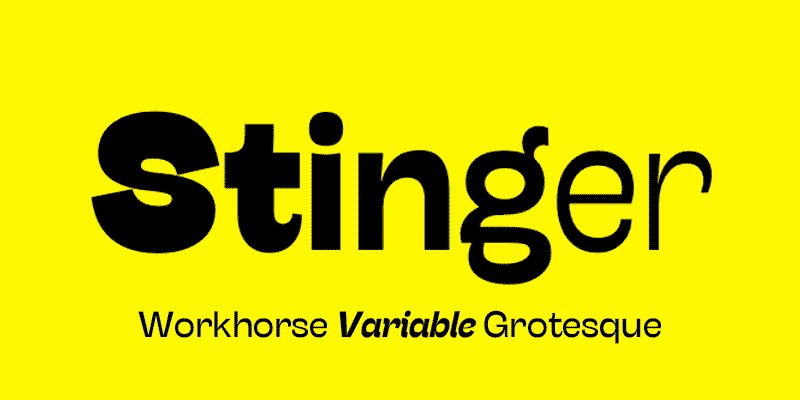
As per our 2023 design trend review, this style of font is taking over the design world! They're like the humanist sans serifs of old, but with a whole lot more personality added to the mix.